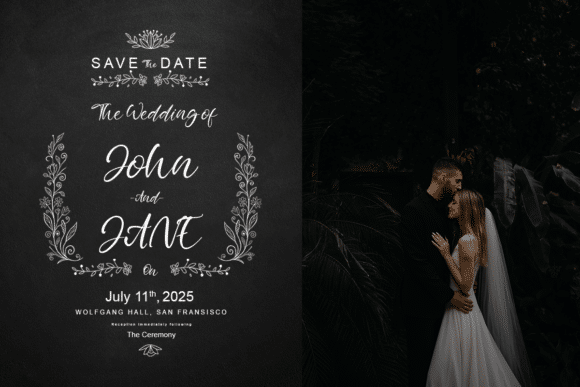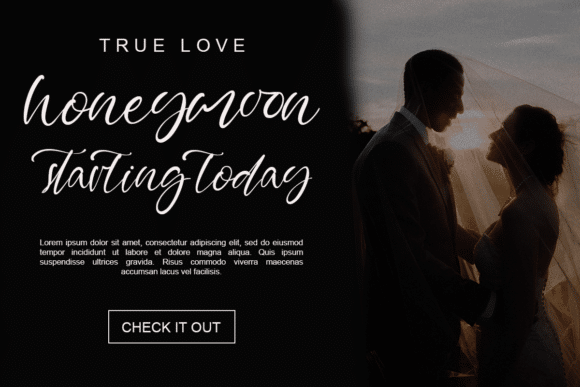
Capture Moment Font
Capture Moment is a classic and playful handwritten script font. It’s great for crafters and designers. It is perfect for any branding project such as logos, t-shirt printing, creative products, and more.